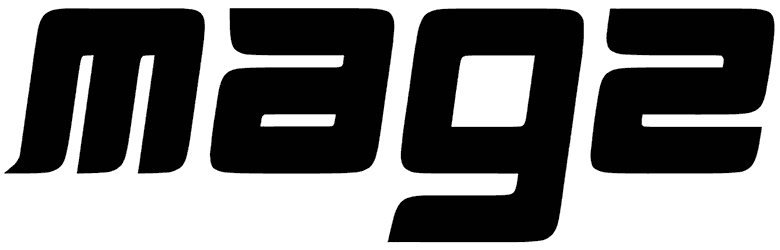
Magz Font
If you are trying to demonstrate your professional competency and creative talent through your illustrations, flyers, menus, or social media posts, utilizing a techno font such as Magz would be the best possible way to achieve this goal. Aside from the lack of uppercase letters, this sci-fi font can add a sense of dynamic, futuristic, or uniqueness to all of your projects.